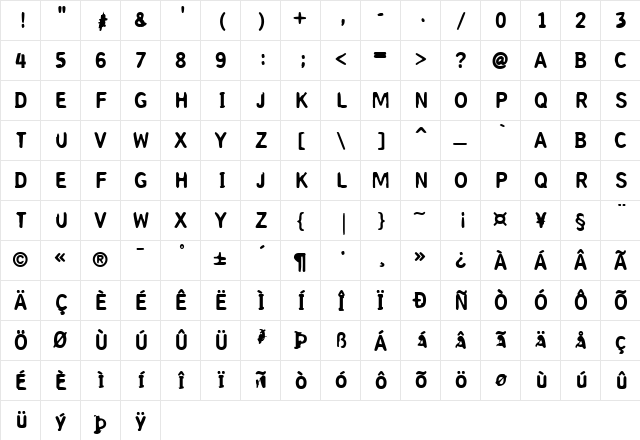
Coperniq Medium
Design Context for Coperniq Typeface
Coperniq offers clean, dependable letterforms without strong stylistic allegiance, making it a practical choice for designers who need flexibility.